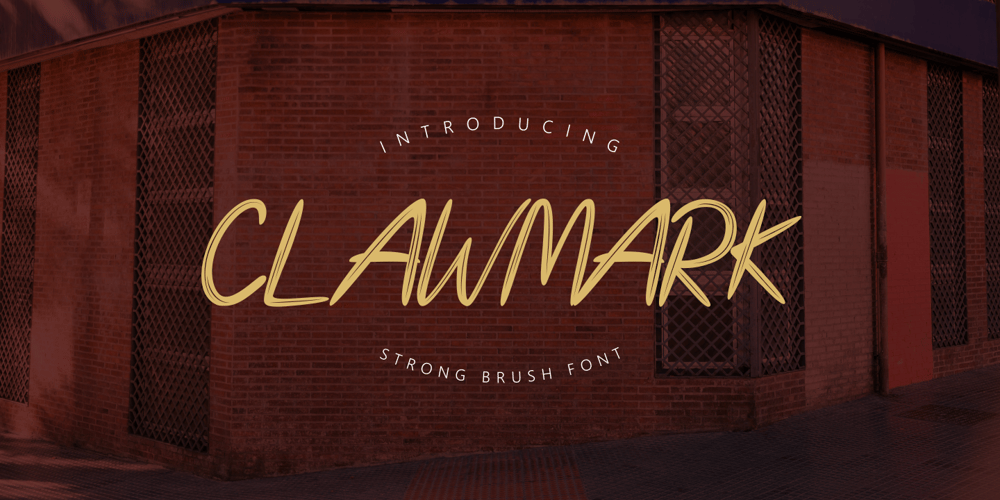
Clawmark Font Family was designed by Putra Novembria Candra Kusuma and published by Putracetol. Clawmark contains 1 styles and family package options. Clawmark – Strong Brush Font.The modern and powerful hand painted font you’ve been looking for. Each character is carefully crafted until the result is perfect. A lot of detail is preserved when characters are digitized, so uppercase looks fantastic up closeClawmark combines attractive curves with a fresh urban edge; delivering a stylish script which is guaranteed to add an eye-catching appeal to your story books, illustrations, comic books, t-shirts, posters, greeting cards, logos, branding, stickers, svg, crafting and all for display purposes.The alternative characters were divided into several Open Type features such as Swash, Stylistic Sets, Stylistic Alternates, Contextual Alternates, and Ligature. The Open Type features can be accessed by using Open Type savvy programs such as Adobe Illustrator, Adobe InDesign, Adobe Photoshop Corel Draw X version, And Microsoft Word. This font is also support multi language.